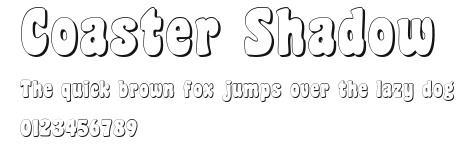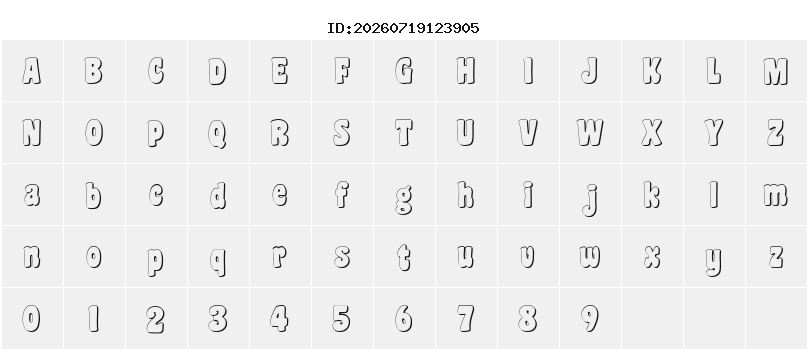
About Coaster Shadow.ttf
Coaster Shadow.ttf is a modern, elegant sans-serif font designed for ultimate readability and visual harmony. Perfect for branding, headlines, web design, and print materials.